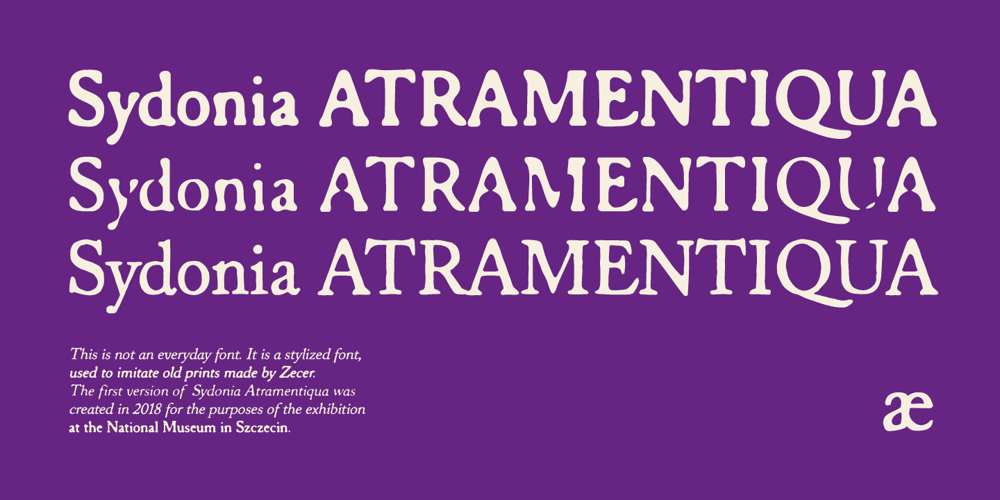
Sydonia Atramentiqua Font Family was designed by Piotr Wardziukiewicz and published by Wardziukiewicz. Sydonia Atramentiqua contains 6 styles and family package options. Sydonia Atramentiqua is a strange creation. The inspiration was the first releases of “Malleus Maleficarum” (actually the typography used there). I decided I wanted something strange, so Sydonia came into being. Like a blood of all witches who were being hunted down by Malleus Maleficarum’s “fans” for their skills and beliefs. Why Sydonia? Sydonia von Borck was a witch from my area. It was probably the last woman executed for witchcraft. The genesis of the name. Sydonia was THE WITCH, and by the name I added “Atramentiqua”. It is a combination of the words “Ink” (polish “ATRAMENT”) + “Antiqua”. The idea of spilling a font is historical. The former Zecer composition was not perfectly sharp. As it was a “wet job”, there were always light exits behind the lines. Who supported me? The GENEALOGIA project has been carried out for several years in cooperation with the Academy of Art in Szczecin and the National Museum in Szczecin. The project’s supervisors are prof. Waldemar Wojciechowski and MA Patrycja Makarewicz, who runs the Visual Communication Studio. Some information: Sydonia was like that! This is not an everyday font. It is a stylized font, used to imitate old prints made by Zecer. The first version of Sydonia Atramentiqua was created in 2018 for the purposes of the exhibition at the National Museum in Szczecin. Base inspiration: Malleus Maleficarum & Caslon.